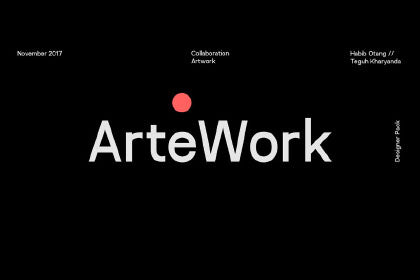
Free Artework Font and Illustration
Download and enjoy this free artework font and illustration. Cool typeface to showcase your designs in a modern way. Go give some love to Free Design Resources for creating this top-notch free font. Amaze your fellow designers and create stunning designs with this cool font.